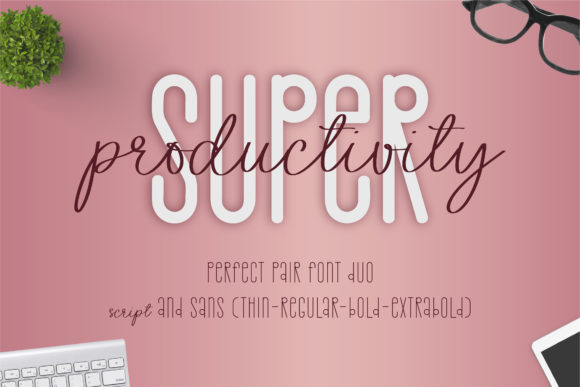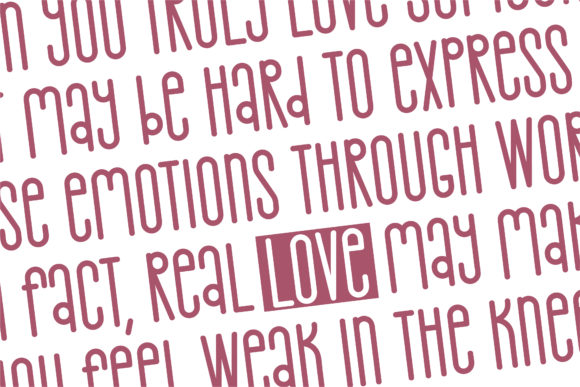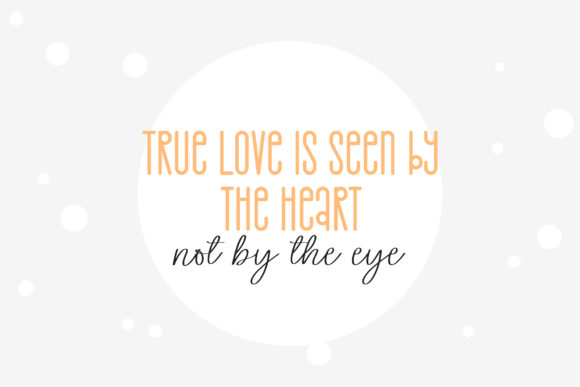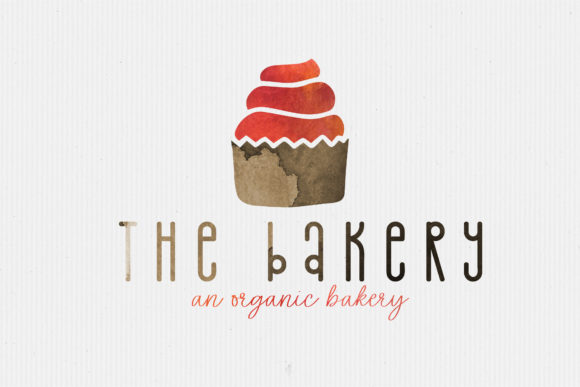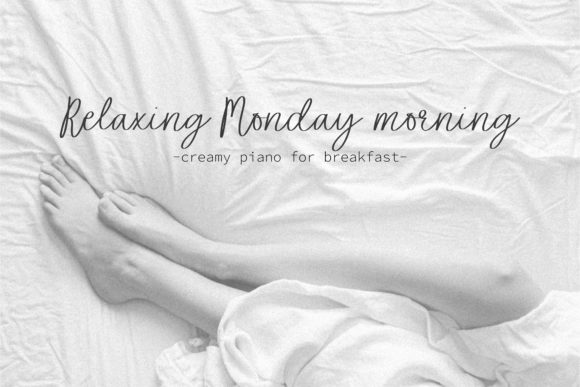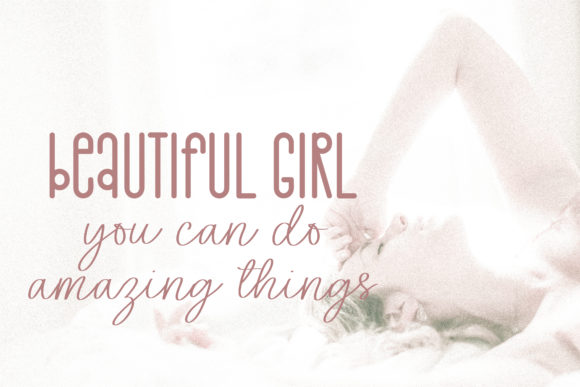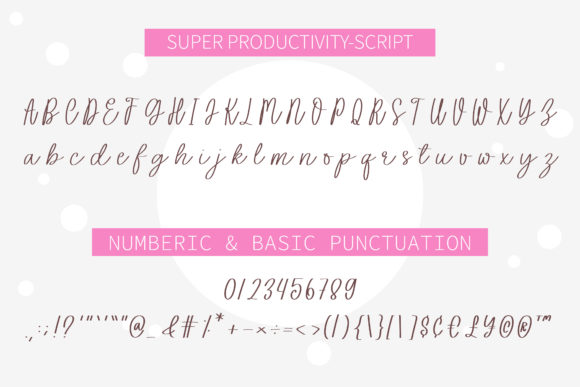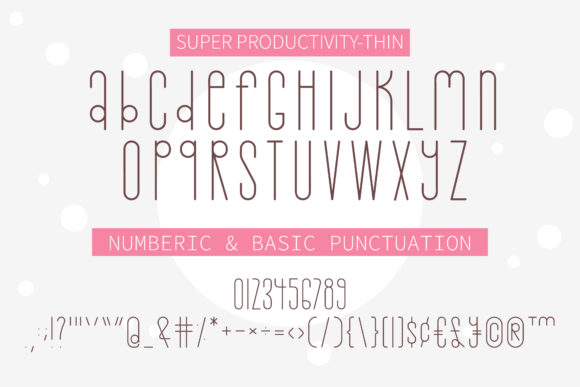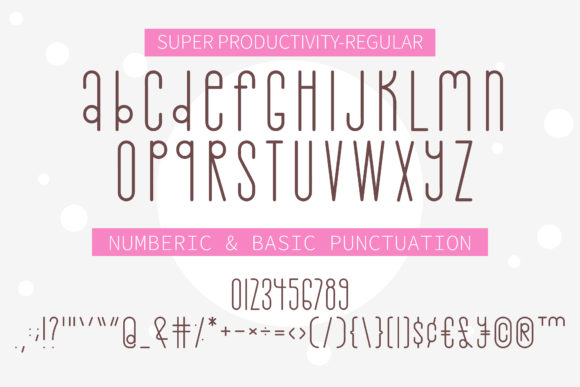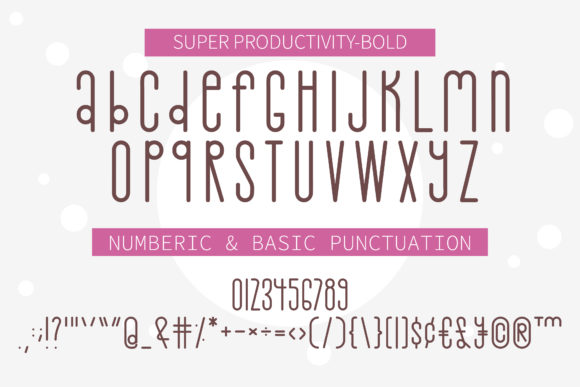
Super Productivity Font
About Super Productivity Font
Super Productivity is a versatile duo-styled font that combines the elegance of a handwritten script with the simplicity of a sans serif font. This font is meticulously designed to strike the perfect balance between being not too thin and not too thick, resulting in a harmonious and visually appealing appearance.
The handwritten script style of Super Productivity adds a touch of personalization and warmth to your designs. Its flowing and organic letterforms exude a sense of creativity and expressiveness, making it suitable for a wide range of projects. Whether you’re designing logos, branding materials, invitations, or social media graphics, the handwritten script variation of Super Productivity adds a charming and unique element to your work.
On the other hand, the sans serif variation of Super Productivity offers a clean and modern aesthetic. Its simplicity and versatility make it an excellent choice for headlines, titles, captions, and any design element that requires legibility and clarity. The balanced and varied letterforms of the sans serif style complement the flowing curves of the script style, creating a cohesive and visually appealing combination.
By using both the handwritten script and sans serif styles of Super Productivity, you can create dynamic and visually interesting designs. Whether you choose to use them together or individually, this font provides you with the flexibility to experiment and customize your projects according to your creative vision.
Super Productivity is designed to enhance the beauty of your projects and to bring a sense of elegance and sophistication to your designs. It is suitable for a wide range of applications, including branding, packaging, advertising, stationery, and more. With its balanced and varied styles, Super Productivity offers you the freedom to explore different design possibilities and create stunning visuals.
In summary, Super Productivity is a versatile duo-styled font that combines a handwritten script with a sans serif style. Its balanced and varied letterforms make it suitable for enhancing the beauty of your projects, while the combination of the two styles offers you creative flexibility and endless design possibilities.